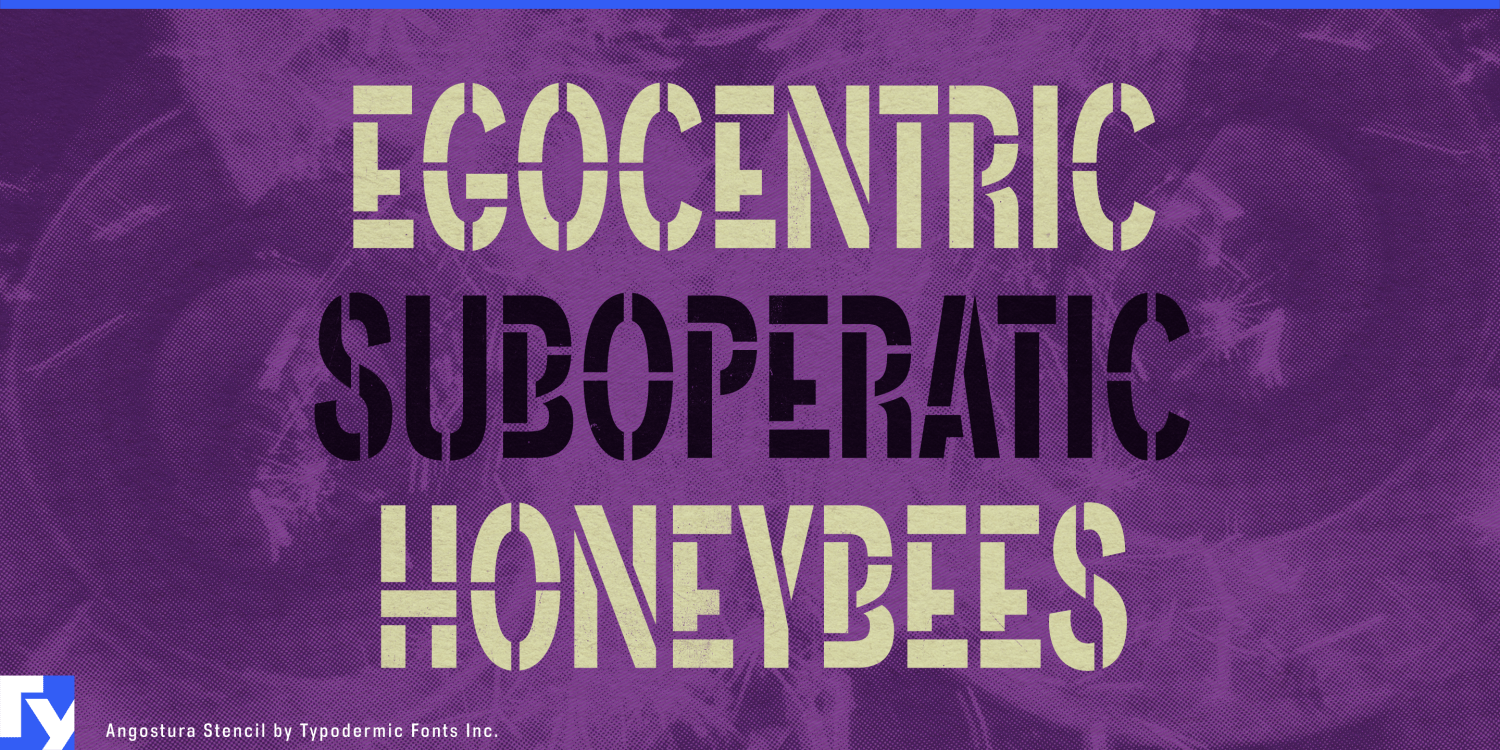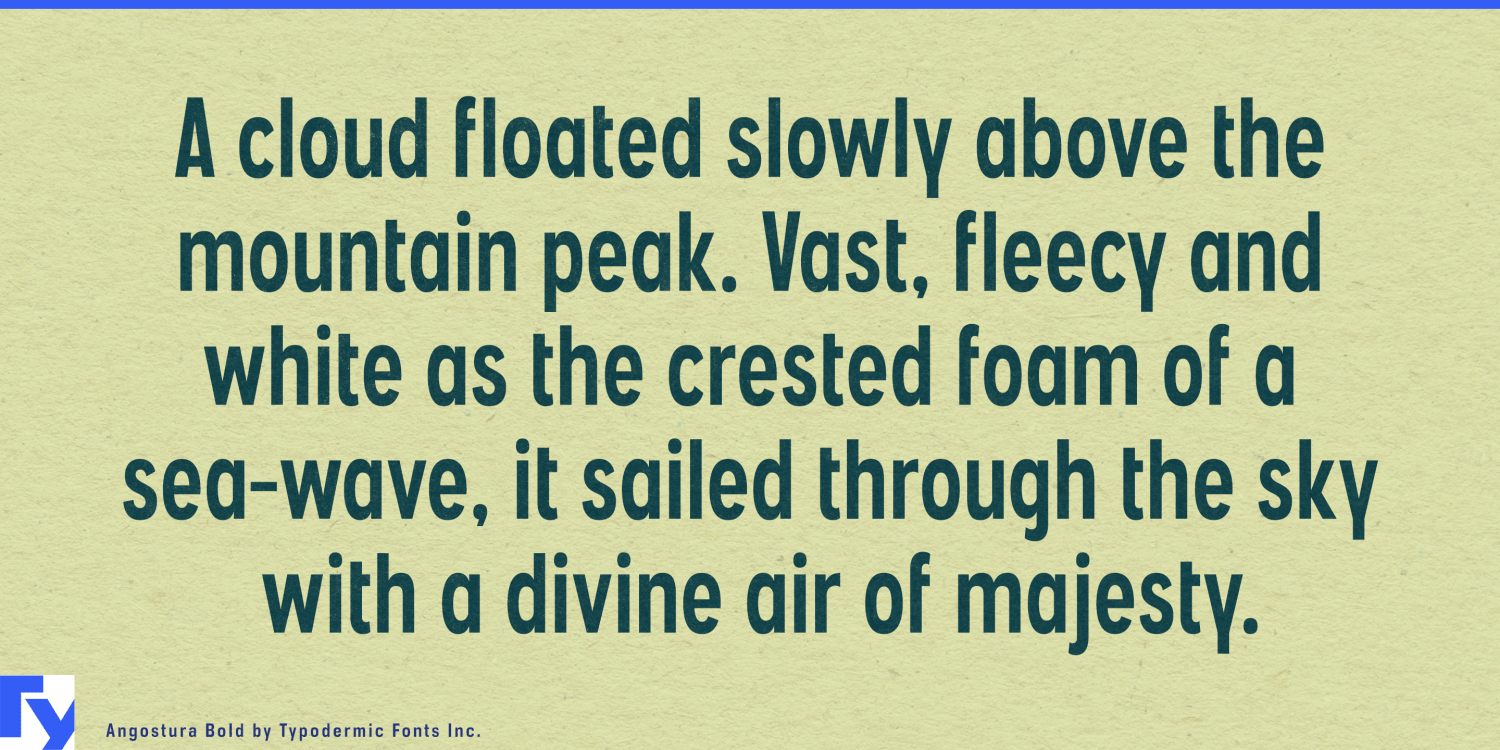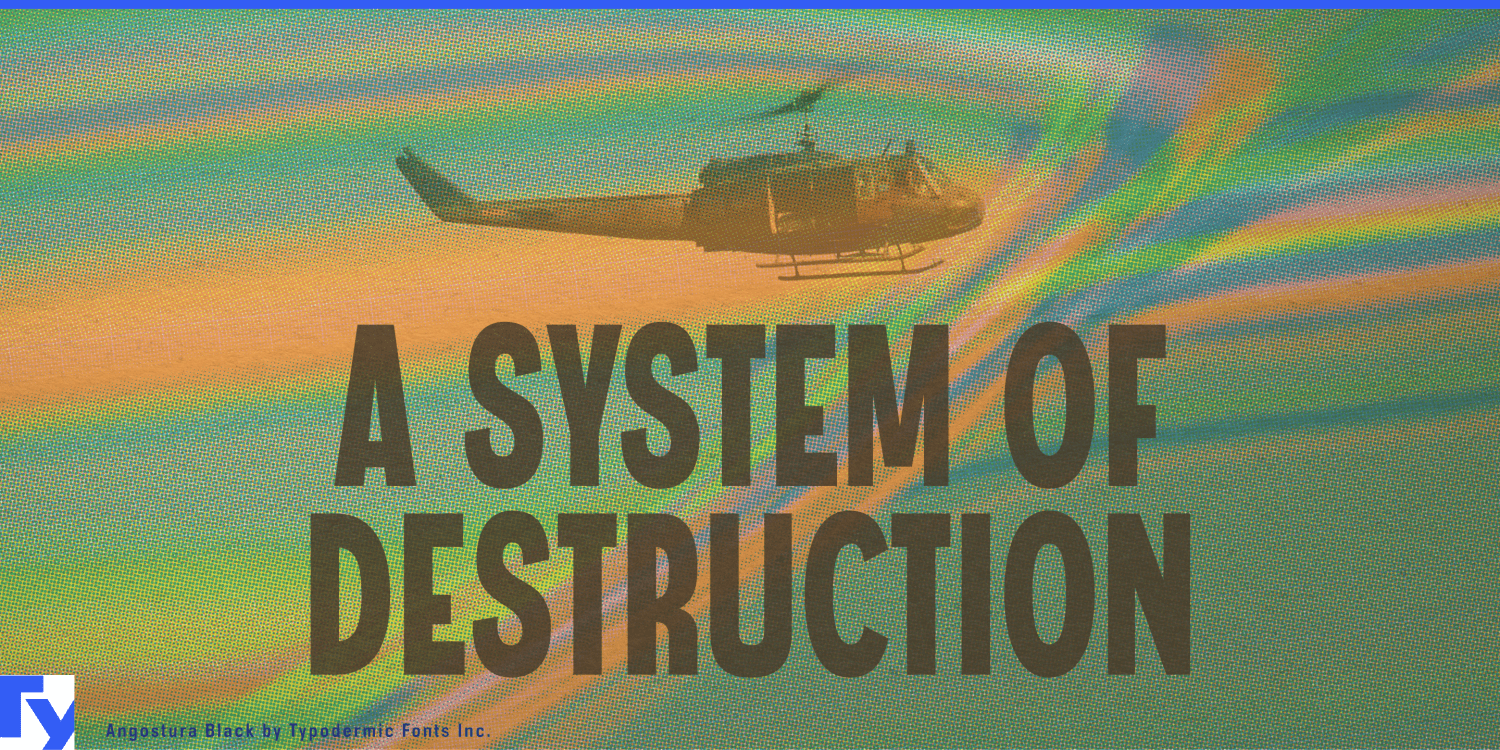
About Angostura
Step back in time with Angostura, a sans-serif typeface that captures the vibrant spirit of America’s golden age. This typographic gem evokes the swagger of 1940s diners, the glamour of 1950s Hollywood, and the optimism of a nation in full swing.…